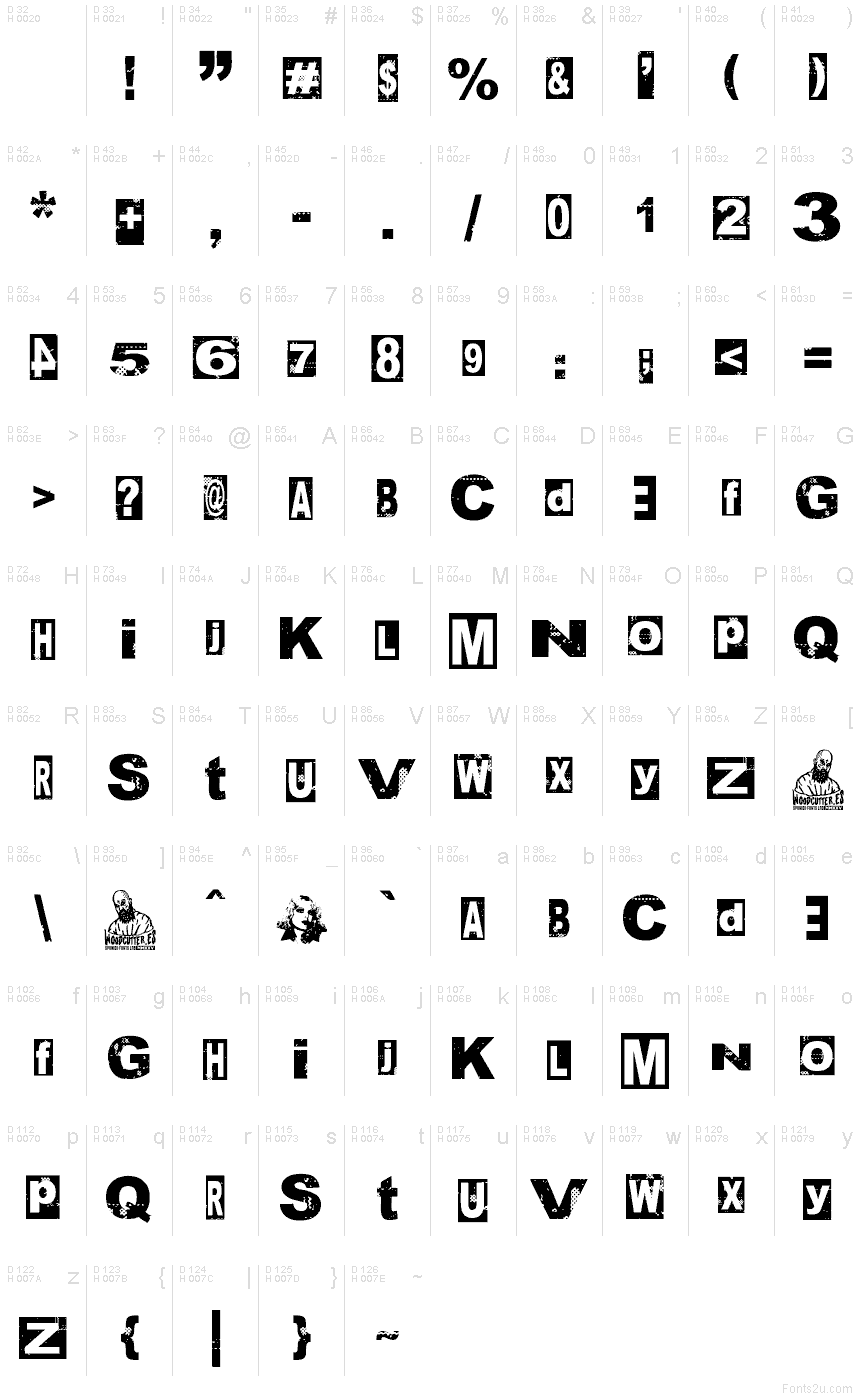
Nancy Spungen
Nancy Spungen font by Woodcutter is a bold display font with an expanded width and distorted style. The typeface appearance is gritty, textured, and distressed with a certain vintage feel which adds to its unique personality. This free font has a high contrast style in which opposites work together to produce interesting results.
Use it in headlines, film posters, website banners, advertisements, video game designs, typography artwork and more. In logos where brand identity needs to attract attention or even magazine covers where boldness is important – this is your chance!